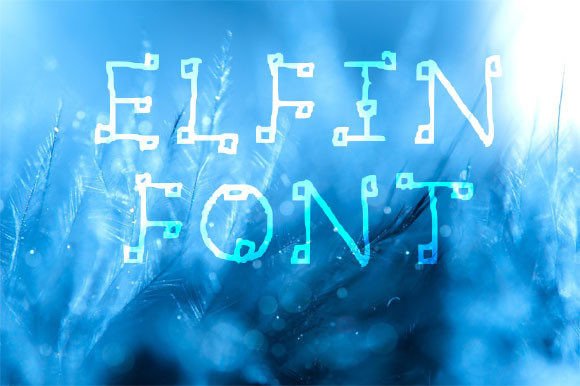
Introducing Elfin Font: The Whimsical Decorative Font for Designers and Crafters
Are you a designer or crafter looking for a unique and playful font to add a touch of magic to your projects? Look no further than Elfin Font, a lovely decorative font featuring characters decorated with little squares. With its simple, hand-made look and whimsical twist, Elfin Font is the perfect addition to any design or crafting project.
What is Elfin Font?
Elfin Font is a decorative font that boasts a distinctive and charming design. Each character is carefully crafted with little squares, giving it a playful and eye-catching appearance. The font’s simple, hand-made look makes it versatile and easy to use, while its whimsical twist adds a touch of personality and flair.
Key Features of Elfin Font
- Unique Character Design: Elfin Font features characters decorated with little squares, giving it a one-of-a-kind look.
- Simple and Hand-Made Look: The font’s simple, hand-made design makes it easy to use and versatile.
- Whimsical Twist: Elfin Font’s whimsical twist adds a touch of personality and playfulness to any design or project.
- Perfect for Design and Crafting Projects: Elfin Font is ideal for designers and crafters looking to add a touch of magic to their projects.
Uses for Elfin Font
Elfin Font is a versatile font that can be used in a variety of design and crafting projects, including:
- Digital and Print Designs: Use Elfin Font in digital and print designs, such as brochures, flyers, posters, and social media graphics.
- Crafting Projects: Add a touch of personality to your crafting projects, such as handmade cards, gift tags, and scrapbooking pages.
- Branding and Packaging: Use Elfin Font to create unique and eye-catching branding and packaging designs.
- Web Design: Elfin Font can be used in web design to add a playful and whimsical touch to your website.
Tips for Using Elfin Font
Here are some tips for using Elfin Font in your design and crafting projects:
- Pair with Other Fonts: Pair Elfin Font with other fonts to create a unique and visually appealing design.
- Experiment with Colors: Experiment with different colors to add depth and interest to your design.
- Use in Combination with Images: Use Elfin Font in combination with images to create a playful and eye-catching design.
- Keep it Simple: Don’t be afraid to keep it simple and use Elfin Font on its own to create a bold and striking design.
| Font Name | Elfin Font |
| Author | Graphics King Creations |
Elfin Font is a unique and versatile decorative font that is perfect for designers and crafters looking to add a touch of magic to their projects. With its simple, hand-made look and whimsical twist, Elfin Font is sure to delight and inspire. Whether you’re working on a digital design, crafting project, or branding and packaging design, Elfin Font is a great choice.